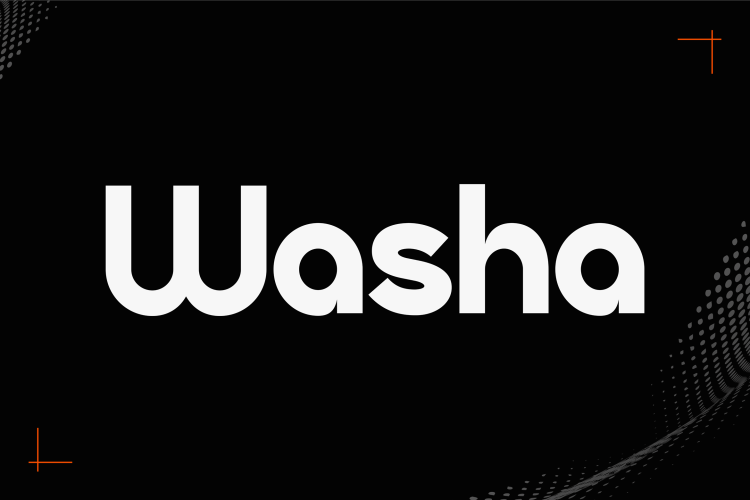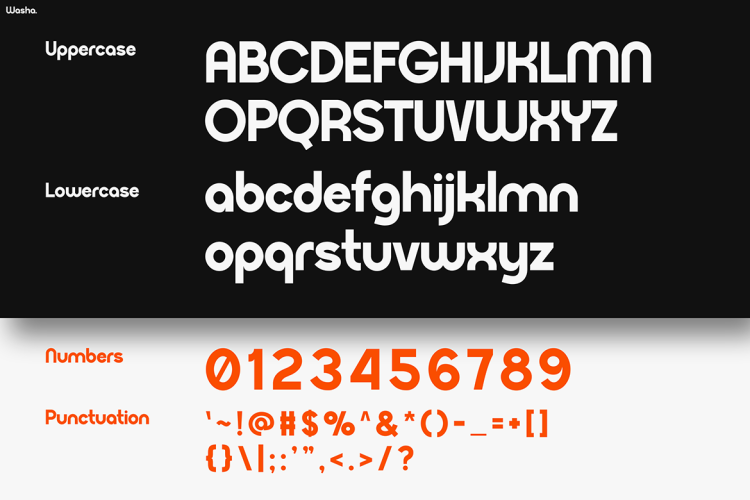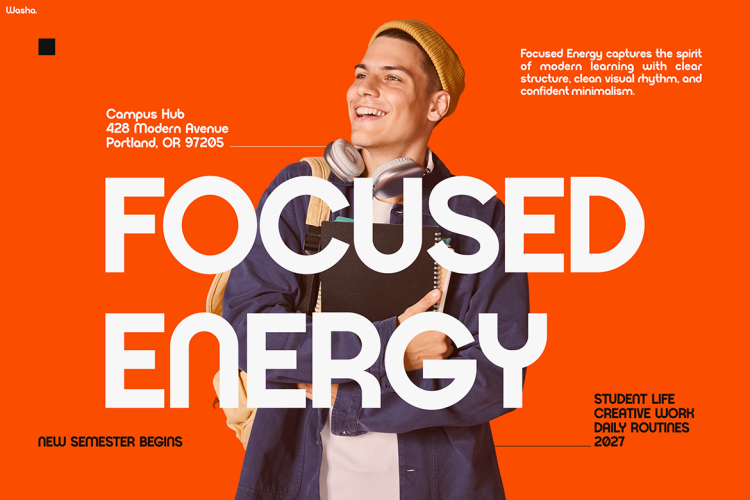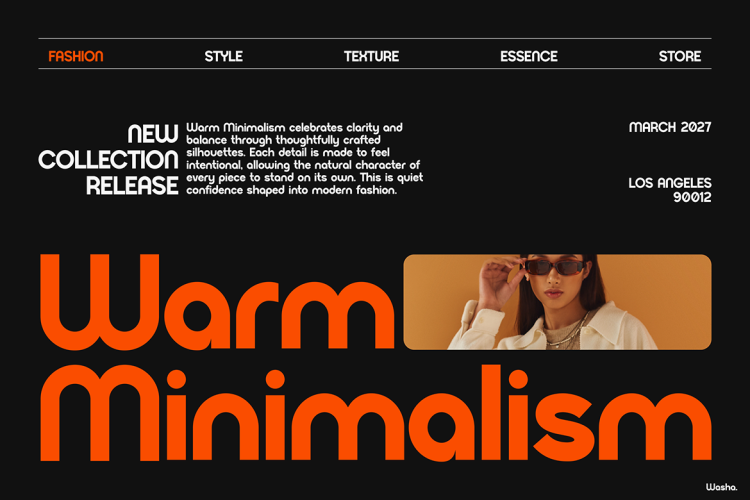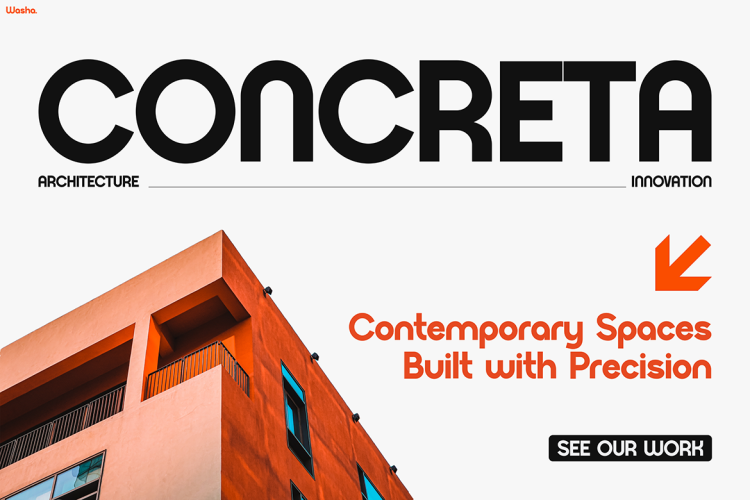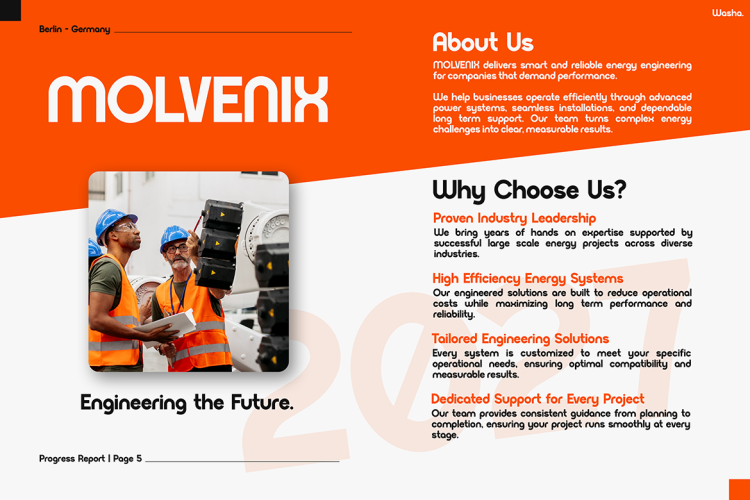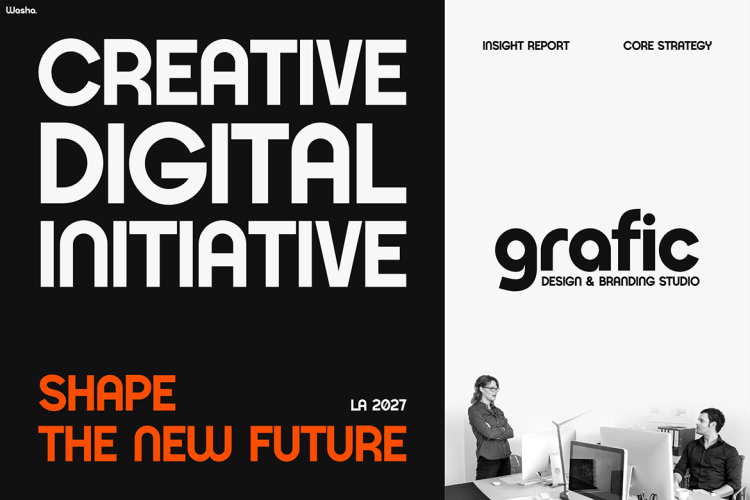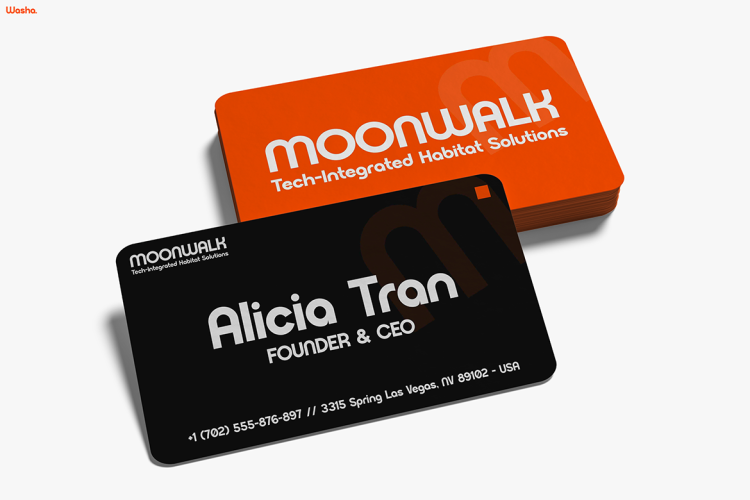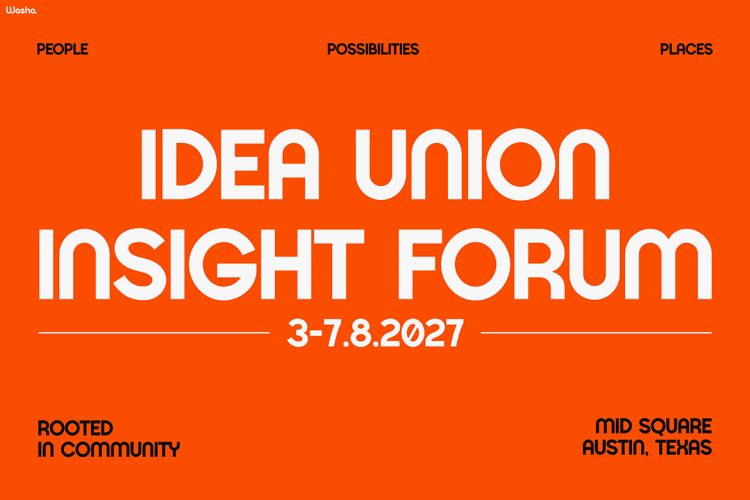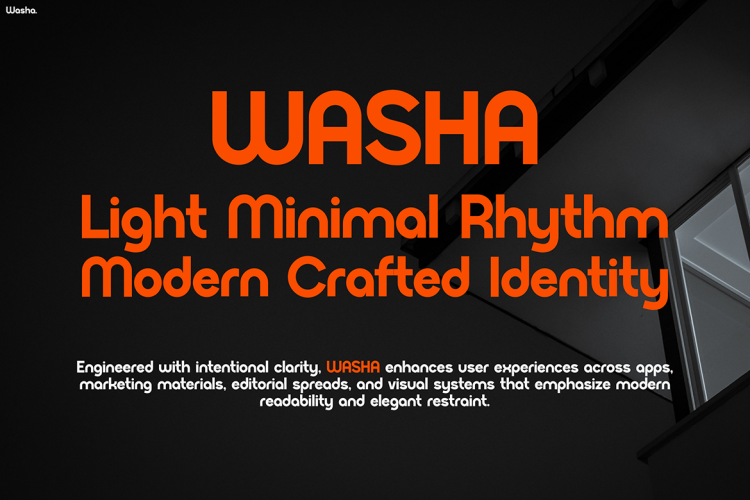
Washa โ Modern Minimal Instagram Font for Bold Creative Branding
Instagram Font Washa is a modern, stylish, and highly versatile typeface that immediately draws attention through its smooth curves, balanced proportions, and bold geometric rhythm. From the very first look, it feels clean and intentional, giving every design a polished and contemporary appearance. Moreover, its rounded structure and confident weight allow it to stand out while still maintaining clarity, making it suitable for both minimalist and expressive design themes. As shown in the preview images, Washa transitions effortlessly across various aestheticsโfrom warm minimalism to corporate modernismโproving how adaptive and visually reliable it is.
Instagram Font Washa offers a refined typographic experience that feels both friendly and professional. Additionally, its letterforms are crafted with thoughtful spacing, allowing it to remain readable even in dense layouts. The uppercase set delivers strength and authority, whereas the lowercase set introduces a softer, more approachable tone. This duality gives designers the flexibility to create contrasting moods without switching fonts. Furthermore, its numerals and punctuation are well-designed, ensuring cohesion throughout branding systems, advertisements, UI layouts, and editorial compositions.
The fontโs versatility becomes even more evident when applied across different themes shown in the visuals. For example, it enhances architectural and construction designs with a sharp, structured look. Likewise, it supports business and digital initiative concepts with a clean, confident presence. It also enriches lifestyle graphics, event posters, and product displays thanks to its warm yet modern expression. Consequently, Washa becomes a dependable typographic tool for creators who seek both aesthetic quality and functional performance.
Instagram Font Washa Who Is It Suitable For ?
Branding designers crafting modern identities
Social media creators who need bold, eye-catching visuals
UI/UX designers requiring clean, readable typography
Agencies designing campaigns, posters, and editorial layouts
Small businesses building promotional materials
Content creators producing quotes, highlights, and announcements
Architects, lifestyle brands, photographers, and marketers
Closing Statement
Ultimately, Instagram Font Washa empowers designers to create visuals that look modern, professional, and distinctly memorable. If youโre seeking a font that enhances clarity while adding strong visual personality, Washa is the perfect choice. Elevate your creative work today with a typeface designed to inspire.